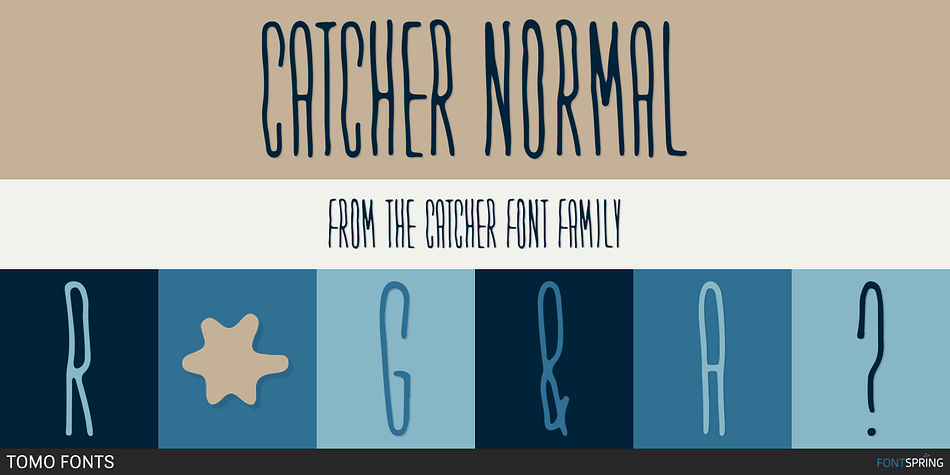
Catcher Normal
Catcher is a font family published by TOMO FONTS.
TOMO Catcher is an extra narrow hand made font. Ideal for display signare or big titles such as for books, posters or websites. — Very tall and condensed!